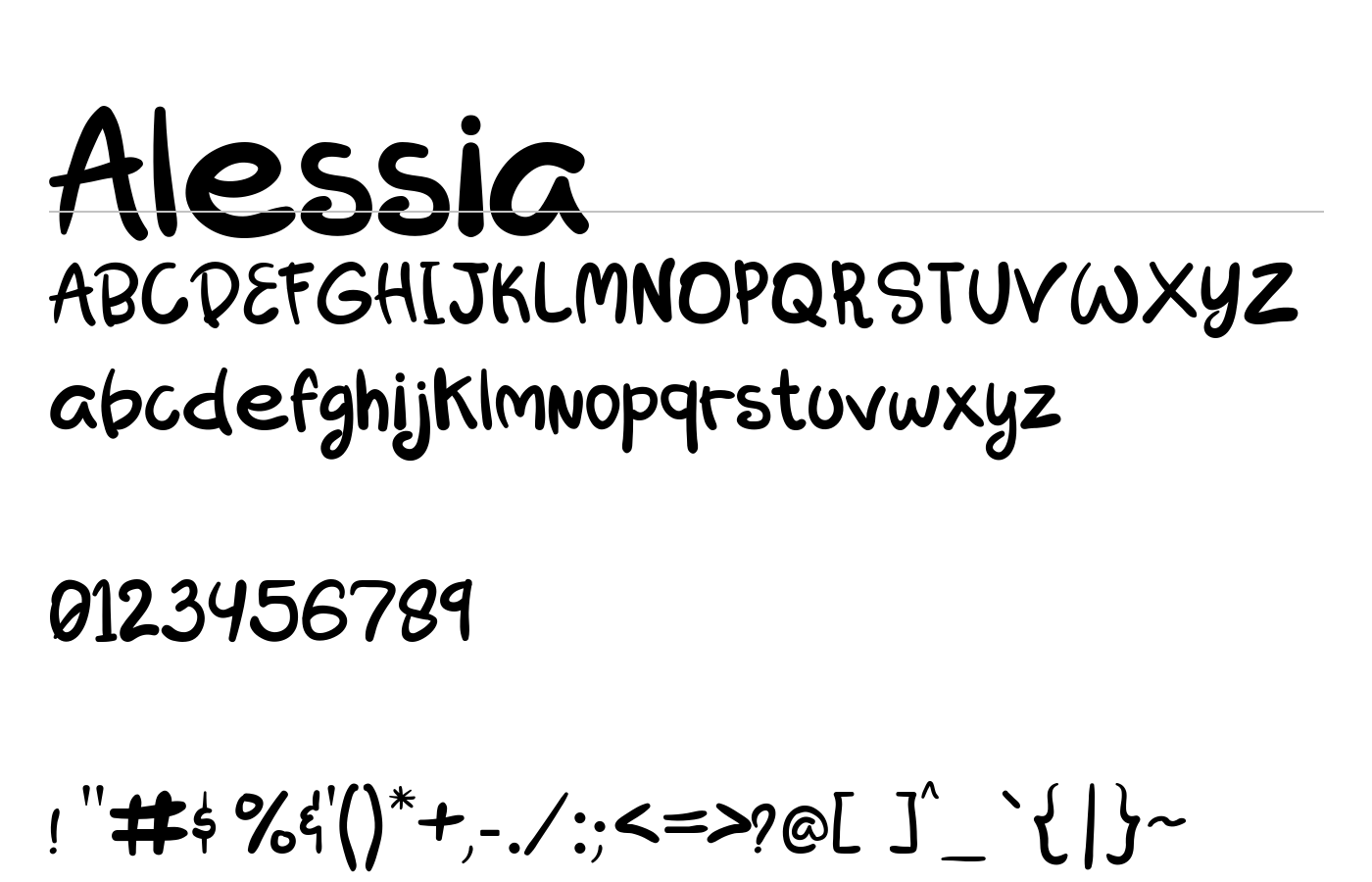
Alessia is a playful and casual handwritten font with a friendly, informal character. Its rounded, slightly irregular letterforms and moderate stroke weight create an approachable and warm feel, perfect for designs that want to convey creativity and personal touch. This font works well for children’s books, casual branding, invitations, and any project seeking a cheerful, hand-crafted vibe.
Alessia Font
About Alessia Font
| Font family | Alessia Font |
| Designer | Herman Siregar |